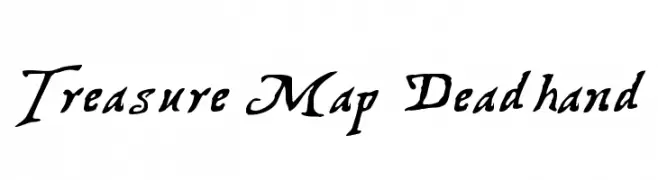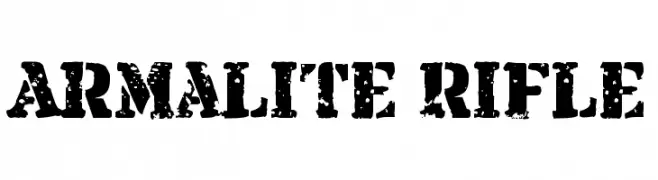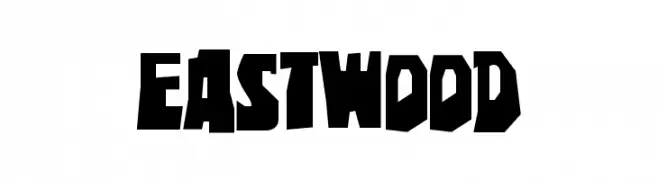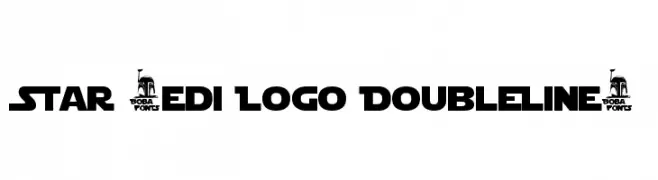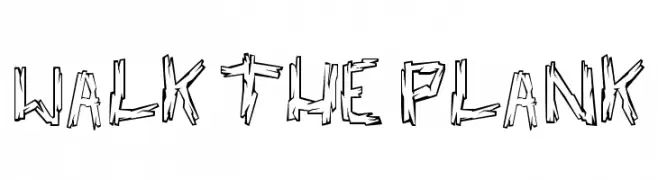
( Fonts by Daniel Gauthier )
A bold, textured font with a rugged, rock-like appearance.
( Fonts by Graham Meade - GemFonts )
A rugged, hand-drawn font with a mysterious, adventurous style.
( Fonts by www.vicfieger.com )
A bold, distressed font with a rugged, weathered appearance.
( Fonts by Daniel Gauthier )
A bold, angular font with a rugged, vintage western style.
( Fonts by Boba Fonts )
A bold, futuristic font with geometric shapes and sharp angles, perfect for sci-fi themes.
( Fonts by Press Gang Studios - Andeh Pinkard - www.pressgang-studios.com )
A rugged, hand-drawn font with a pirate-themed, adventurous style.